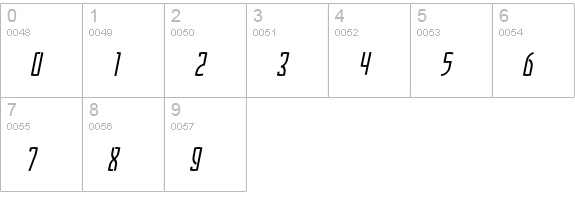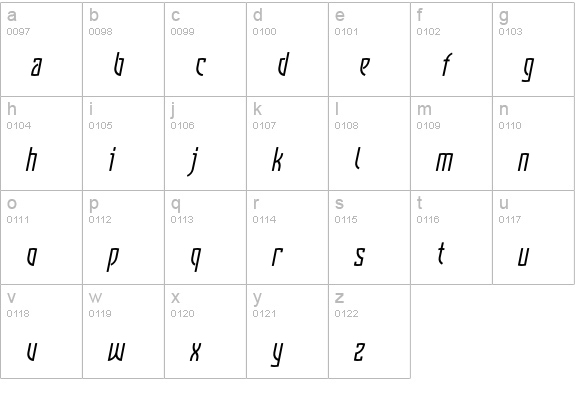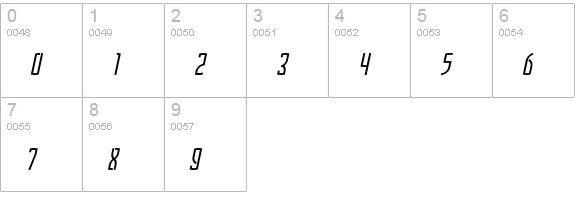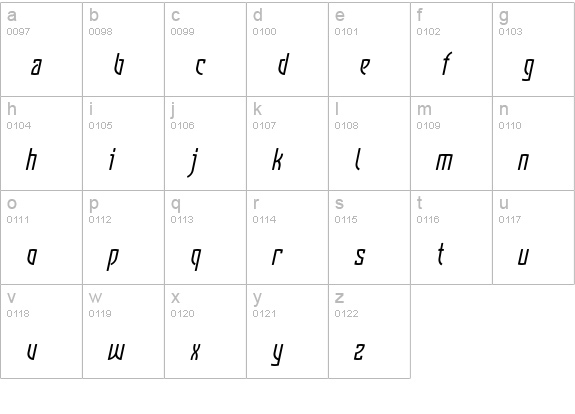
Komunique-Italic Font Details
Komunique-Italic is a distinctive, italic variant in the Komunique typeface family \xE2\x80\x94 well suited to design and typography projects.
Komunique-Italic font is a stylish and elegant typeface that exudes sophistication and modernity. With its unique italic design, this font is perfect for adding a touch of sophistication to any project. The sleek and clean lines of Komunique-Italic make it a versatile choice for a wide range of design applications, from branding to editorial design. What's even better is that Komunique-Italic font is available for free download at FontsMarket.com. This means you can easily access this beautiful font and use it in your projects without any cost. Whether you're designing a logo, creating a poster, or working on a website, Komunique-Italic font will elevate your design with its sleek and contemporary look. Don't miss out on this opportunity to enhance your designs with the elegant Komunique-Italic font, now available for free at FontsMarket.com. Download it today and start creating stunning visuals that will leave a lasting impression.